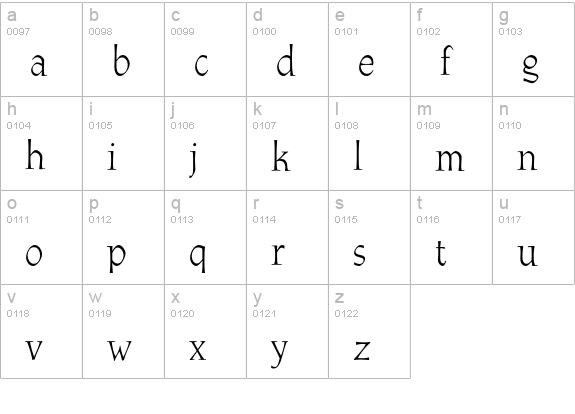
Athenaeum Std is a sophisticated and elegant font that exudes timeless beauty and classic charm. With its graceful curves and delicate serifs, this typeface brings a touch of refinement to any project. Whether used for invitations, branding, or editorial design, Athenaeum Std adds a touch of sophistication and class. The best part? Athenaeum Std is completely free to download at FontsMarket.com. This means you can elevate your designs with this exquisite font without breaking the bank. Don't miss out on the opportunity to enhance your projects with the beauty of Athenaeum Std. Download it today and experience the elegance for yourself.